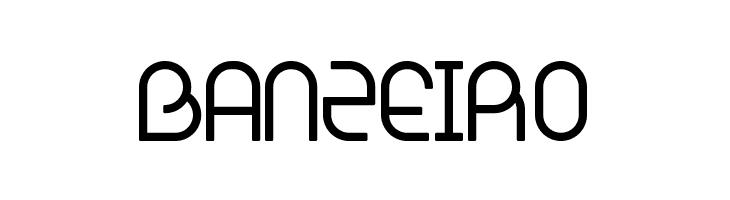
A flowing, cursive script font with elegant, connected characters.
A bold, expressive handwritten font with dynamic strokes and fluid forms.
A playful, casual handwritten font with smooth, flowing lines and a dynamic feel.
A playful, handwritten font with a whimsical and artistic style.
A bold, outlined font with a playful, retro style.
A bold, angular font with a modern, edgy style.
A playful, balloon-like font with rounded characters and a whimsical style.
A bold, playful script font with smooth, flowing curves and a handwritten style.
A bold, playful font with rounded, slightly condensed characters.
A bold, geometric font with sharp angles and a blocky structure.
A bold, brush-style font with a dynamic, hand-painted appearance.
A bold, blocky font with a strong, modern presence.
A lively and elegant script font with flowing, interconnected letterforms.
A graceful script font with elegant, flowing letters reminiscent of classic calligraphy.
A fluid and elegant handwritten font with dynamic, flowing letterforms.
A modern, geometric font with clean lines and a slightly condensed style.
A modern, geometric font with rounded edges and consistent stroke widths.
A playful and bold script font with a handwritten feel.
A dynamic handwritten font with fluid, continuous strokes and a casual elegance.
A fluid, handwritten script font with elegant, flowing lines.
A modern, geometric font with rounded edges and consistent stroke width.
A playful, slanted handwritten font with medium contrast and a dynamic style.
A playful, bold outline font with a three-dimensional appearance.
A bold, decorative font with textured, three-dimensional letterforms.
A geometric, modern font with clean lines and rounded corners, ideal for tech-inspired designs.
A modern, segmented font with a bamboo-inspired design.
A bold, brush-like font with an organic, hand-drawn style.
A modern, bold font with a halftone pattern and geometric design.
A modern, tubular font with a playful, bamboo-like design.
( Fonts by Andrew McCluskey - nalgames.com. Personal-use only. For commercial use please contact owner. )
A bold, geometric font with sharp angles and a modern style.
( Fonts by Eko Bimantara )
A bold, condensed font with a playful and strong design.
A bold, playful font with exaggerated curves and thick strokes.
A bold, playful font with chunky, rounded characters.
A decorative font with intricate, nature-inspired bamboo-like patterns.
A lively and elegant script font with a handwritten appearance.